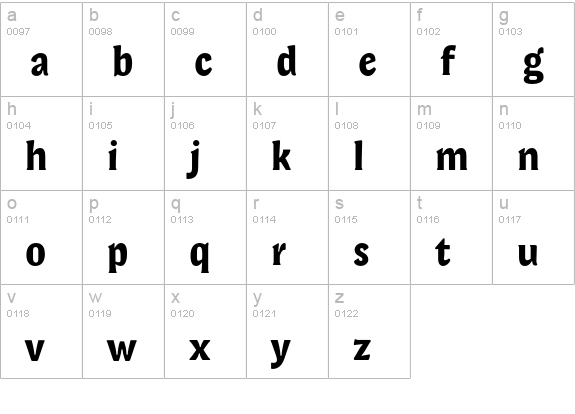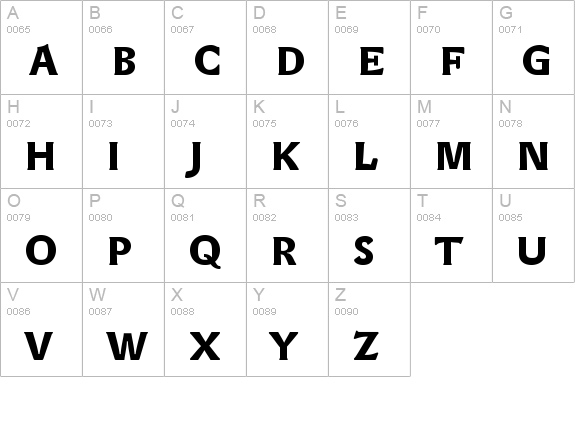
LexiconGothic-Bold Font Details
LexiconGothic-Bold is a strong, high-contrast variant in the LexiconGothic typeface family \xE2\x80\x94 well suited to headlines, attention-grabbing titles, and strong calls-to-action.
LexiconGothic-Bold is a captivating and bold font that exudes a sense of mystery and sophistication. With its unique Gothic-inspired design, this font is perfect for adding a touch of edginess to any project. The strong and commanding strokes of each letter make a powerful statement, while the intricate details add an element of intrigue. This font is not only visually striking but also highly versatile. It can be used for various purposes, such as headlines, logos, posters, and more. Its bold presence ensures that your message will be noticed and remembered. What makes LexiconGothic-Bold even more appealing is that it is freely available to download at FontsMarket.com. This means that anyone can access and use this font without any restrictions. Whether you are a professional designer or a casual user, you can enjoy the benefits of this remarkable font without having to pay a dime. Download LexiconGothic-Bold today and elevate your designs to new heights. Let the power and elegance of this font make a lasting impression on your audience. With its striking appearance and free accessibility, LexiconGothic-Bold is a must-have for any designer or creative individual looking to make a bold statement.